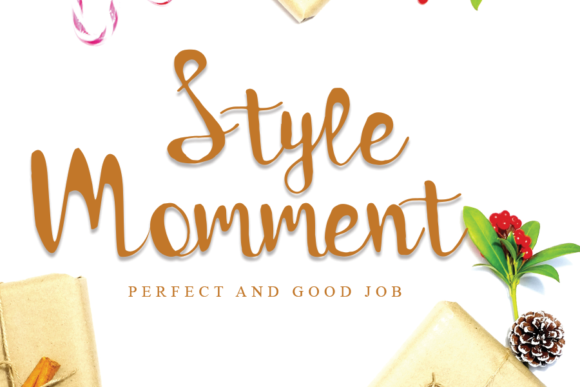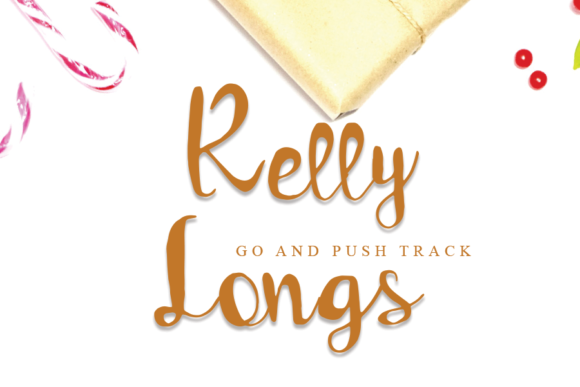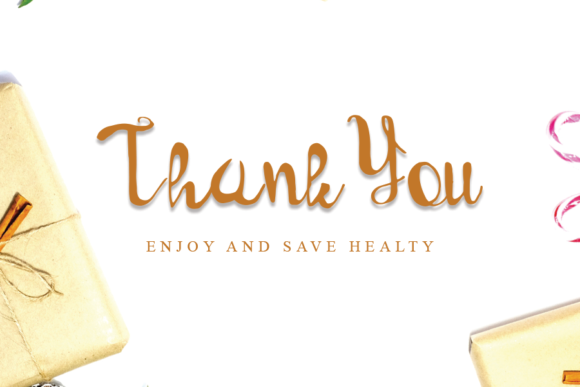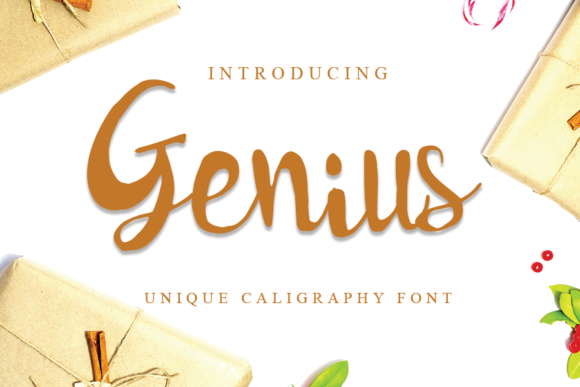
Introducing Genius Font: The Beautiful Brush Script Font
Are you tired of using the same old fonts in your designs? Look no further! Genius Font is a stunning script font that is sure to elevate your creative projects. Designed with the help of a beautiful brush pen, Genius Font boasts a natural and unique style that makes it incredibly versatile. Whether you’re a designer, crafter, or simply a DIY enthusiast, Genius Font is the perfect addition to your font collection.
The Story Behind Genius Font
Genius Font was created with the intention of capturing the essence of handwriting with a brush pen. The font’s designer aimed to create a script font that would exude a sense of elegance and sophistication, while still maintaining a personal and human touch. The result is a font that is both beautiful and unique, making it perfect for a wide range of design applications.
What Makes Genius Font So Special?
So, what sets Genius Font apart from other script fonts on the market? Here are just a few features that make it a standout:
- Natural and Unique Style: Genius Font has a distinct, hand-crafted feel that makes it perfect for designs that require a personal touch.
- Versatility: With its elegant and flowing script, Genius Font can be used in a wide range of designs, from wedding invitations and greeting cards to branding and advertising materials.
- Easy to Read: Despite its script style, Genius Font is surprisingly easy to read, making it perfect for body text as well as headlines.
Uses for Genius Font
The possibilities are endless when it comes to using Genius Font in your designs. Here are just a few ideas to get you started:
- Wedding Invitations and Stationery: Add a touch of elegance to your wedding invitations, save-the-dates, and other stationery with Genius Font.
- Branding and Packaging: Use Genius Font to create beautiful and eye-catching branding materials, such as logos, business cards, and product labels.
- Digital Marketing Materials: Add a personal touch to your digital marketing materials, such as social media graphics, email newsletters, and blog posts.
- Crafting and Scrapbooking: Use Genius Font to add a creative and personal touch to your crafting and scrapbooking projects.
Tips for Using Genius Font
Here are a few tips for getting the most out of Genius Font:
- Use it as a Headline Font: Genius Font is perfect for headlines and titles, where its elegant script can really shine.
- Experiment with Colors: Try pairing Genius Font with different colors and textures to add depth and interest to your designs.
- Mix it with Other Fonts: Don’t be afraid to pair Genius Font with other fonts to create a unique and interesting contrast.